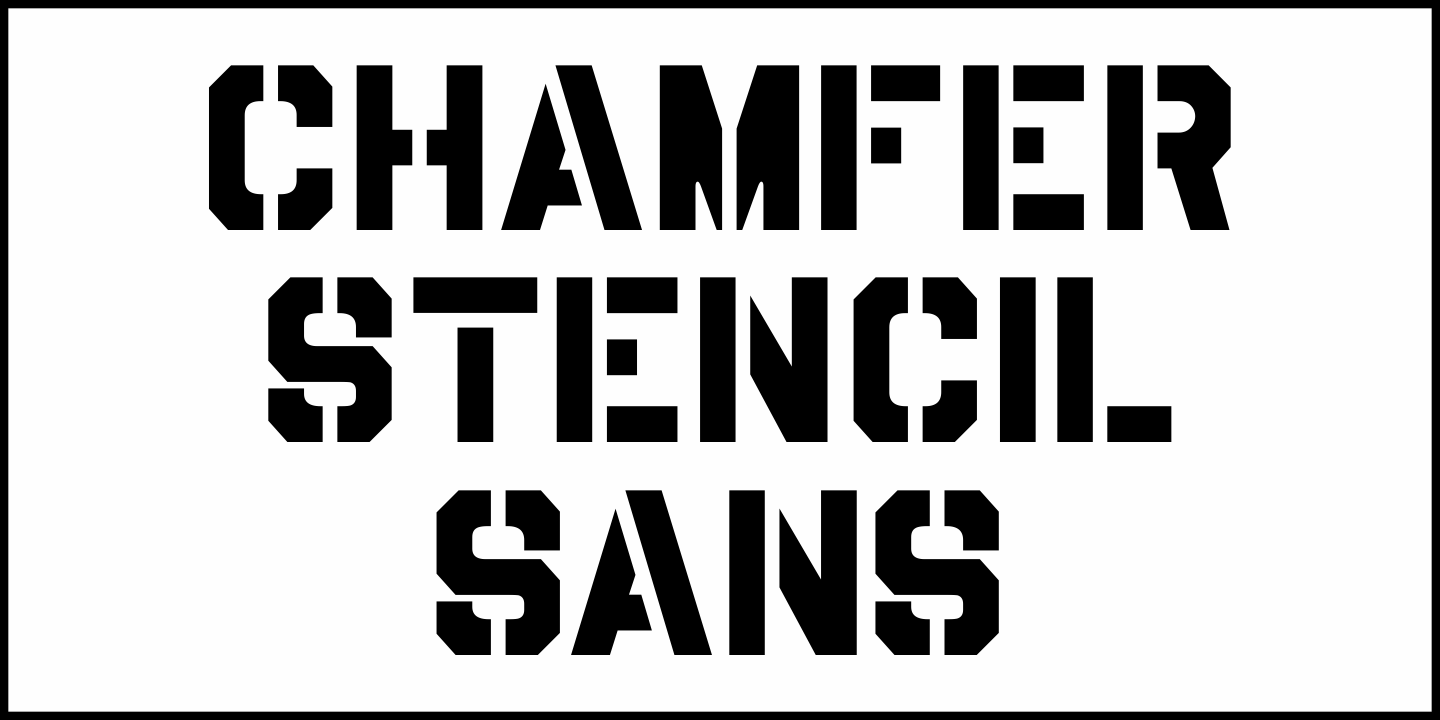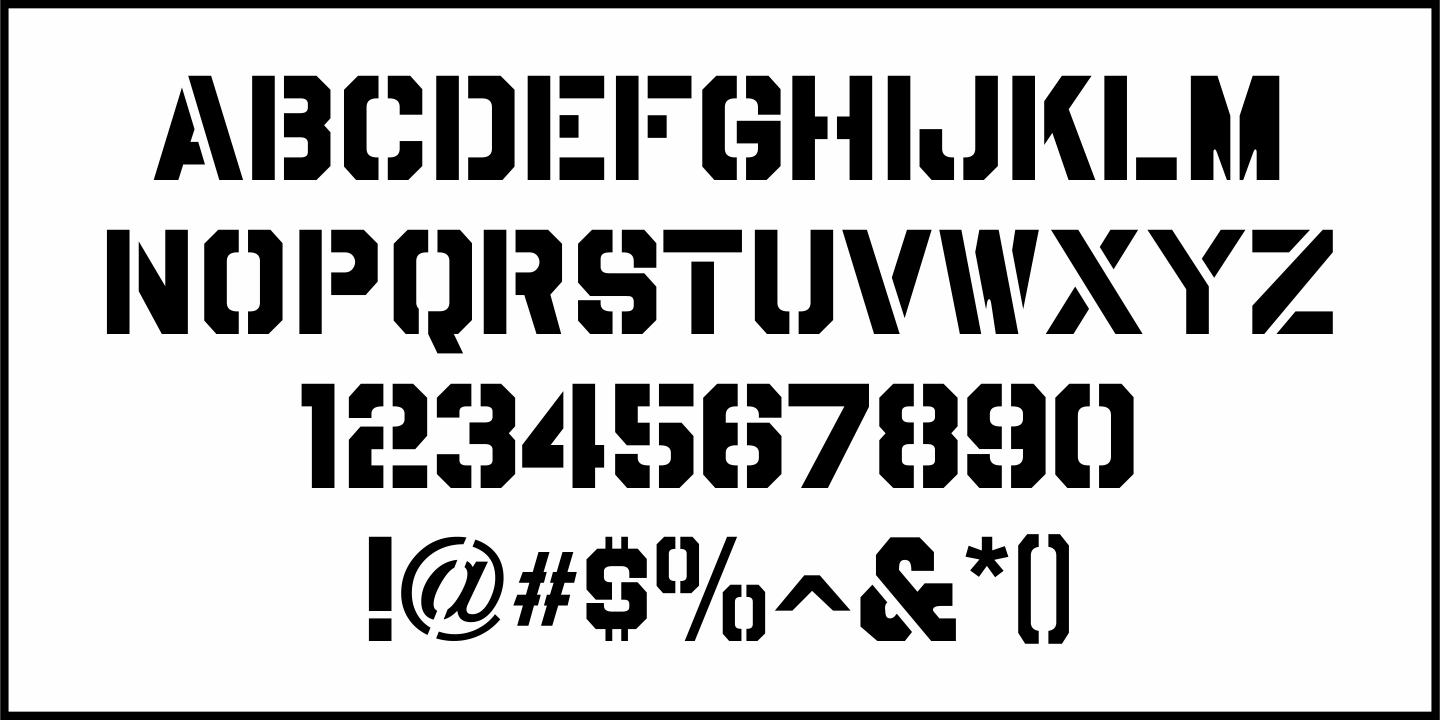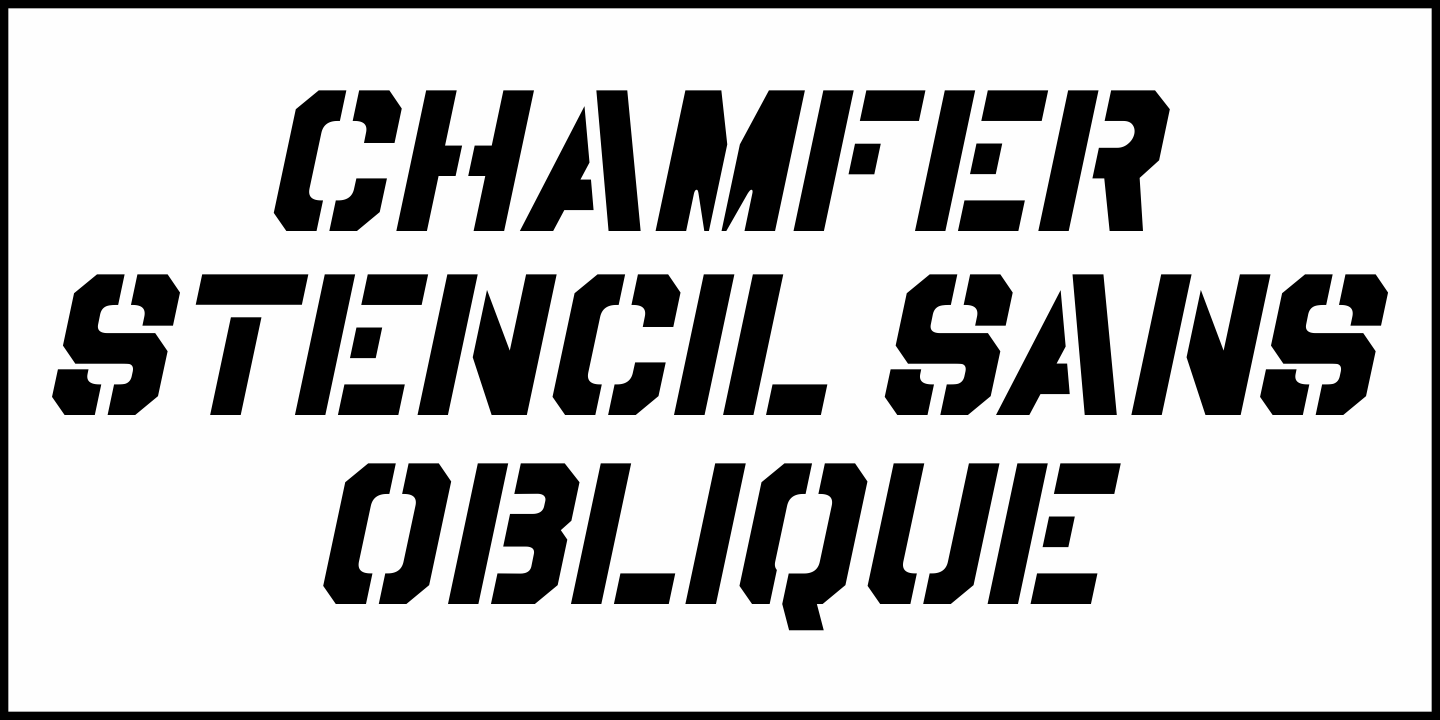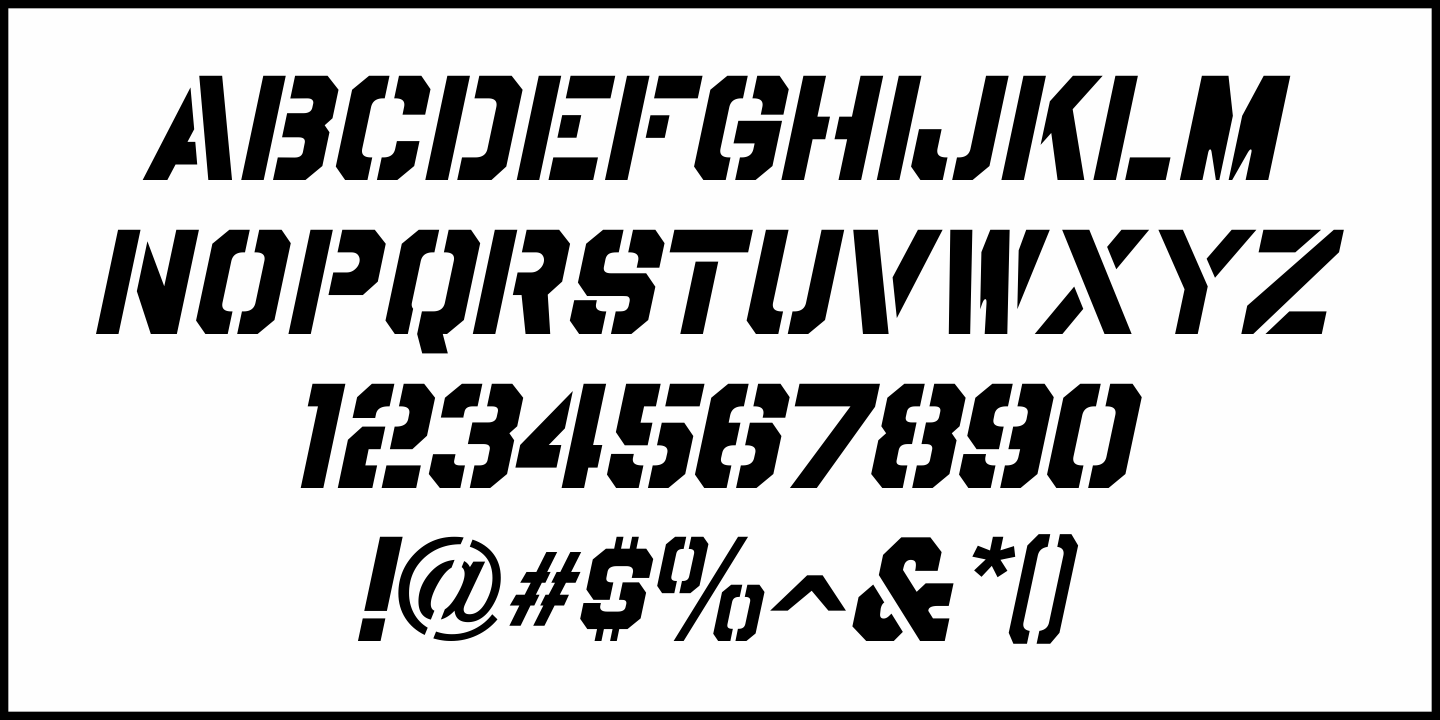
Chamfer Stencil Sans
Based on some 1930s-era 'block chamfer' gummed paper lettering, Chamfer Stencil Sans JNL is a stenciled treatment of the original design; available in both regular and oblique versions.
Chamfer Stencil Sans JNL Oblique by Jeff Levine Fonts